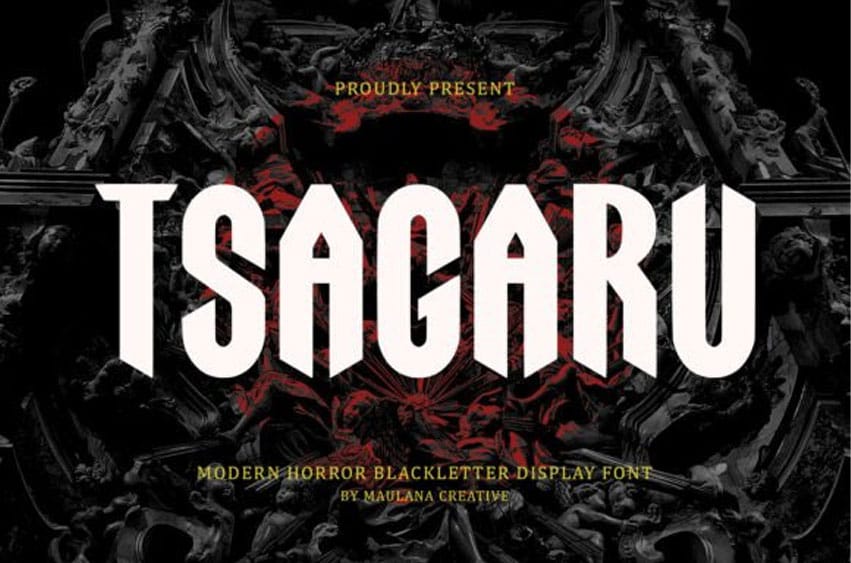
Tsagaru Font Unleash the darkness with Tsagaru, a spine-chilling blackletter display font designed to bring a hauntingly modern edge to your creative projects.
Step into the shadows with Tsagaru, a spine-chilling Modern Horror Blackletter Display Font. This typeface reimagines traditional gothic structures through a modern, cinematic lens, resulting in letters that are both majestic and terrifying. The Tsagaru font features elongated vertical strokes and sharp, blade-like serifs that evoke the atmosphere of dark cathedrals and ancient rituals. It is the definitive horror typeface for anyone looking to add a sense of impending doom or dark elegance to their creative work.
The Tsagaru typeface is a master of atmosphere. It is the perfect font for movie posters, dark fantasy novel covers, and heavy metal album art. To maximize its impact, pair the Tsagaru font with a muted, moody color palette—think deep crimsons, charcoal blacks, and bone whites. It can be further enhanced with “distressed” or “blood-drip” effects to lean into the macabre. Beyond horror, its structural beauty makes it a surprising but effective choice for luxury gothic branding or high-end fashion labels looking for a “dark-vogue” aesthetic. Use it for chapter headings in a mystery novel or as a striking title for a supernatural podcast to immediately set a haunting tone.